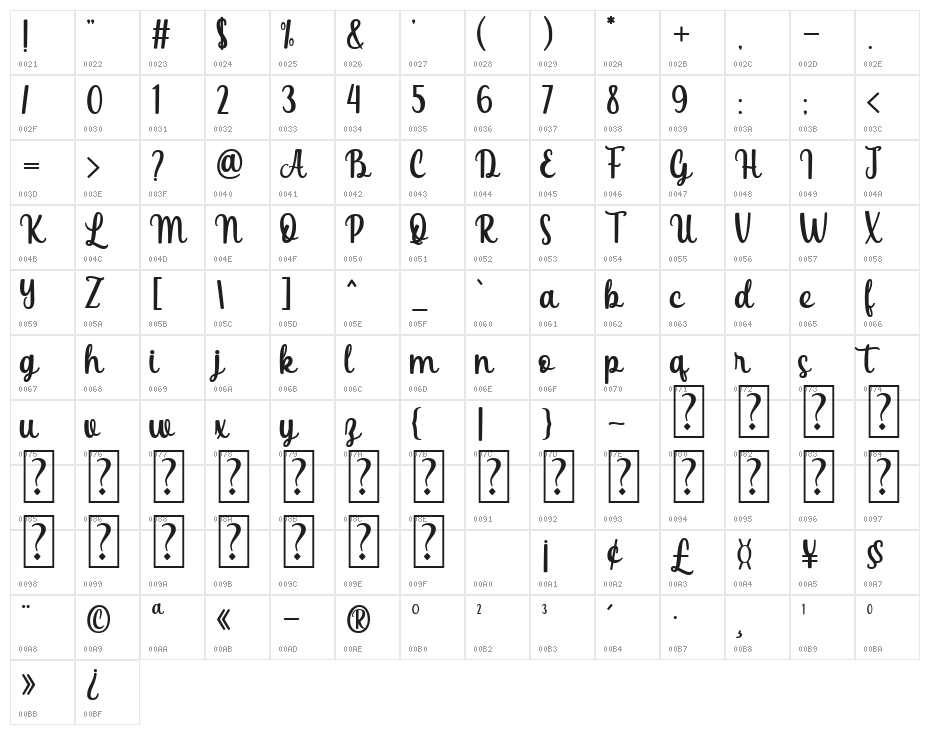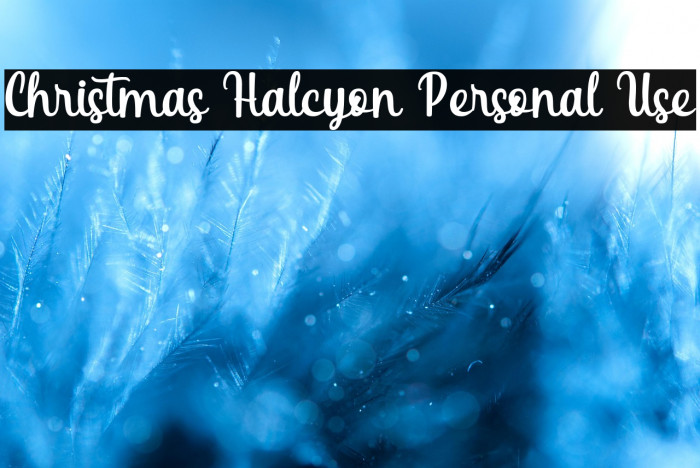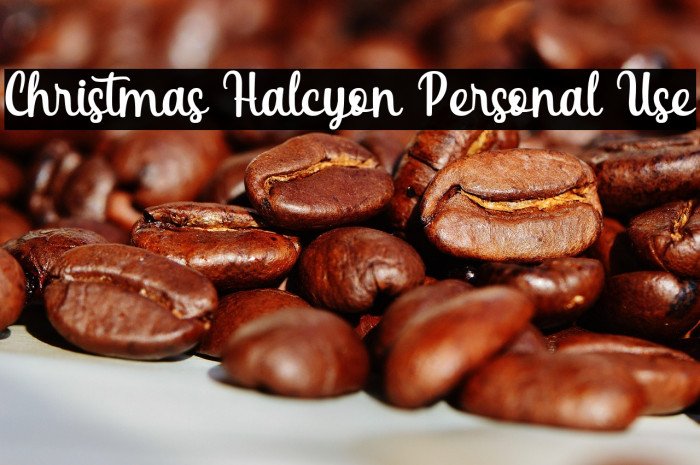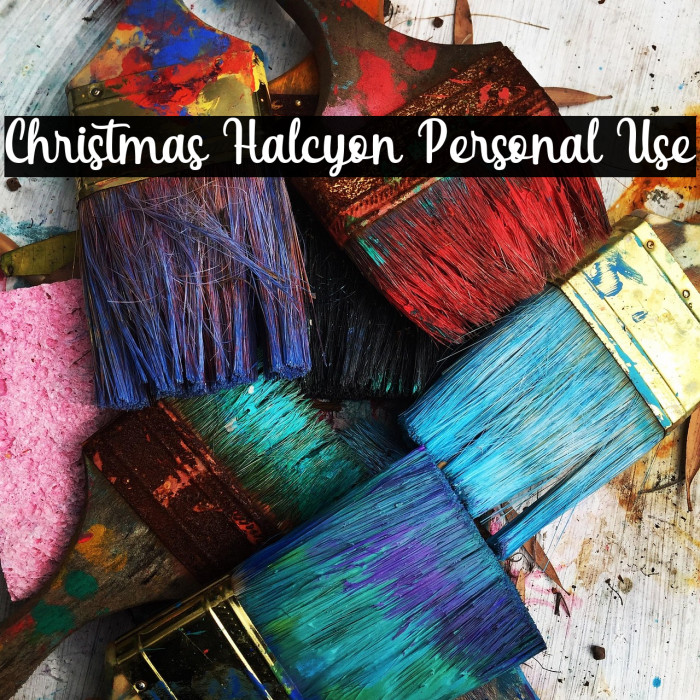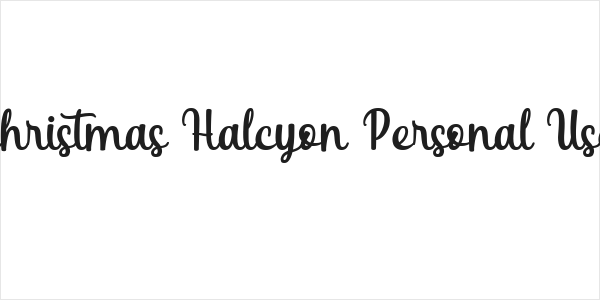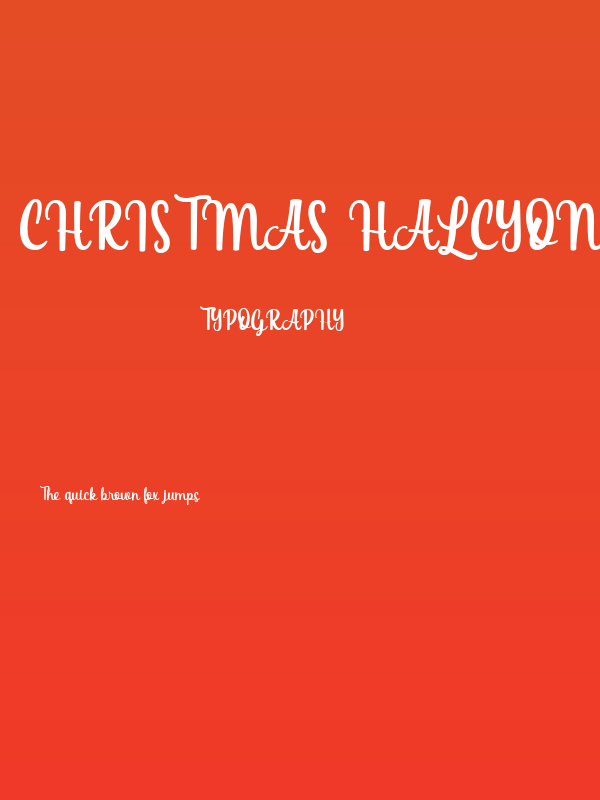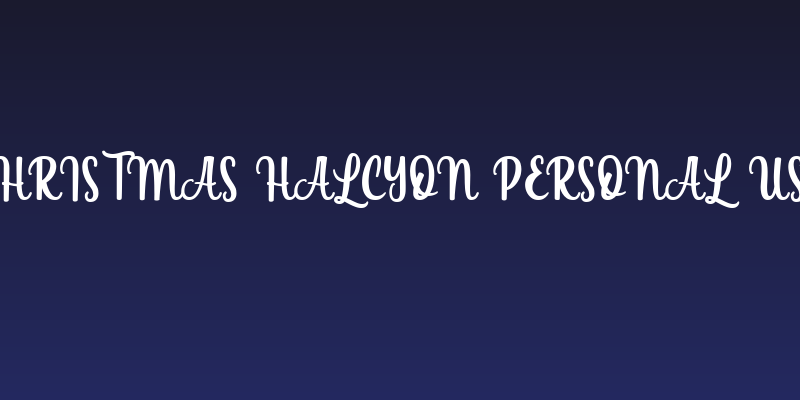
Christmas Halcyon Personal Use Font
Christmas Halcyon Personal Use Description
This font features a playful and whimsical script style, characterized by its flowing, cursive letters. The uppercase letters are bold and rounded, with a consistent stroke width that gives them a friendly and approachable appearance. The lowercase letters maintain the same playful style, with some characters featuring unique loops and swirls that add to the font's charm. The numerals are clear and easy to read, matching the overall aesthetic. Special characters are included, maintaining the same playful and decorative style. This font is perfect for adding a festive and cheerful touch to any project.
Use CaseHeadlines, Logos, Invitations
Proposed ProjectsIdeal for holiday cards, festive invitations, playful branding, and decorative signage.